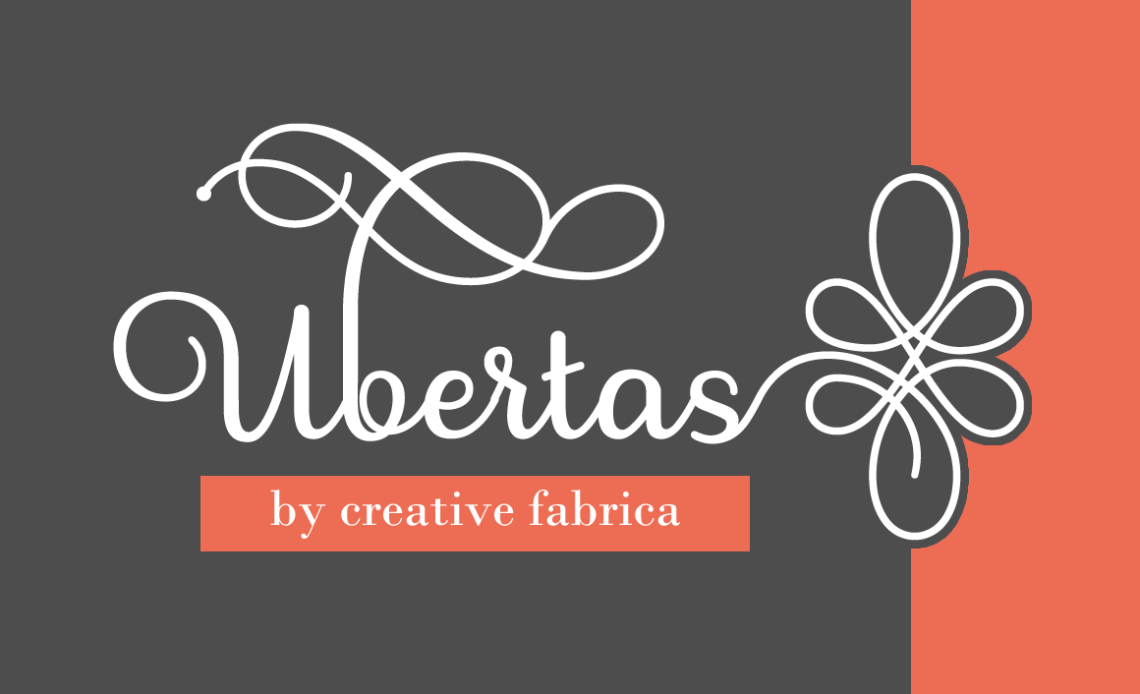
Immerse yourself in the boundless world of typography with Ubertas, a captivating script font family designed to elevate your creative projects to new heights. Ubertas, meticulously crafted by Creative Fabrica Fonts, is an embodiment of elegance, versatility, and limitless possibilities.
Unleash your imagination with Ubertas's treasure trove of stunning alternates that empowers you to conjure endless variations. Its creative characters provide an inexhaustible source of inspiration, transforming every design into a unique masterpiece. With Ubertas, monotony becomes a distant memory, as it effortlessly conjures something extraordinary, irrespective of how often you employ it.
Adorned with 833 meticulously drawn and perfected characters, Ubertas exudes consistency and harmony. Each glyph is a testament to the font's unwavering commitment to visual aesthetics. Ubertas embodies the perfect balance between decorative elements and readability. While its elaborate embellishments captivate the eye, its inherent functionality ensures a pleasant and effortless reading experience. This duality opens up a realm of possibilities, allowing you to seamlessly integrate Ubertas into your regular body text, creating captivating and immersive reading experiences.
Ubertas, with its breathtaking beauty and unwavering functionality, is the ultimate choice for designers, bloggers, content creators, and anyone seeking to leave an indelible impression. Its versatility knows no bounds, seamlessly adapting to a myriad of projects. Whether you're crafting logos, branding materials, social media posts, wedding invitations, or any other creative endeavor, Ubertas will elevate your designs with its distinctive charm.
Embrace the transformative power of Ubertas and unlock the gateway to unparalleled creativity. Let your imagination soar as you explore the boundless possibilities offered by this remarkable font family. Transform your designs into captivating works of art that resonate with your audience. Experience the magic of Ubertas and elevate your creative journey to unprecedented heights.